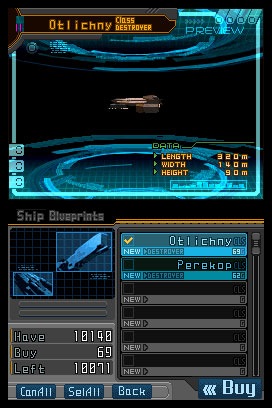
Infinite Space’s Futuristic Font
Wondering what Infinite Space looks like in English?
It doesn’t look that different, but the font Sega picked is an interesting choice. They selected a style heavy on right angles, a font that almost looks sci-fi. The screenshot seems to be missing something though, Tosca’s name isn’t in the English picture. Whoops!